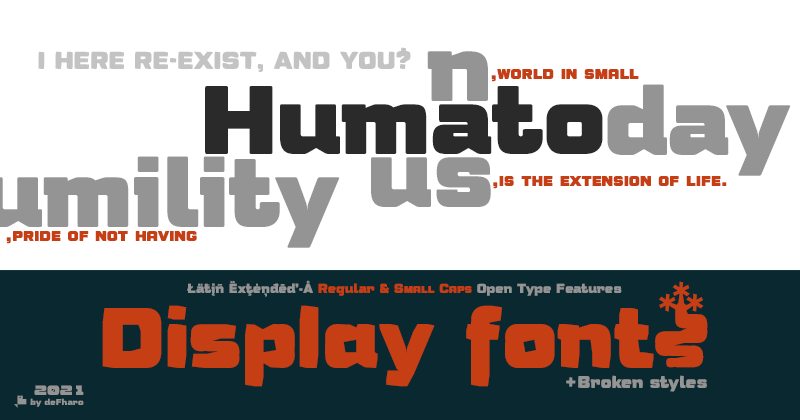
Humato has to do with Humus, therefore with life. Humato Heavy is a family of display fonts, very thick, with a square proportion and rounded corners. Two main styles: Regular and Small Caps. The fonts have a detailed configuration of Metrics and Kerning. You will find in the commercial version 3 sets of Capital letters, 5 sets of lower case letters and 10 of numbers, in addition, they include alternative characters and advanced Open Type functions, in addition, two extra complete versions, broken style, which can also be used as a layer font. ================================= FULL VERSIONS & COMMERCIAL LICENSES https://defharo.com/fonts/humato/ |